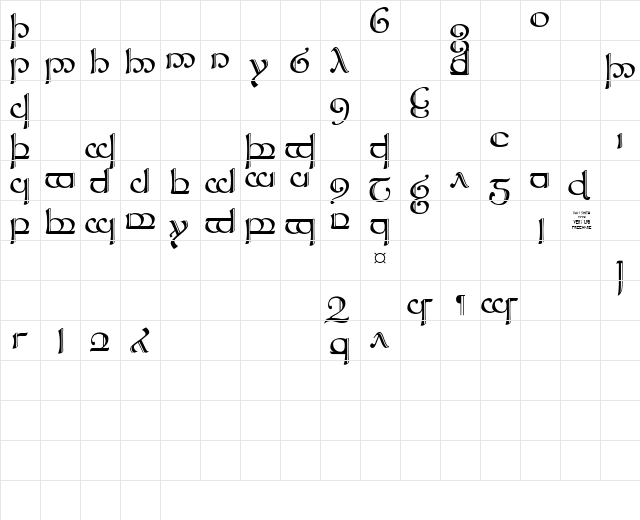
Tengwar Sindarin-2 Regular
Design Context for Tengwar Sindarin-2 Typeface
Tengwar Sindarin-2 is a composed and adaptable typeface that performs quietly and consistently across a wide range of design contexts.